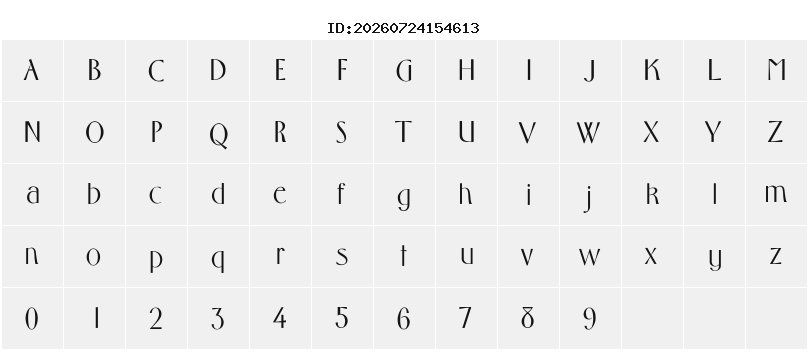
Middleton.ttf is a modern, elegant sans-serif font designed for ultimate readability and visual harmony. Perfect for branding, headlines, web design, and print materials.